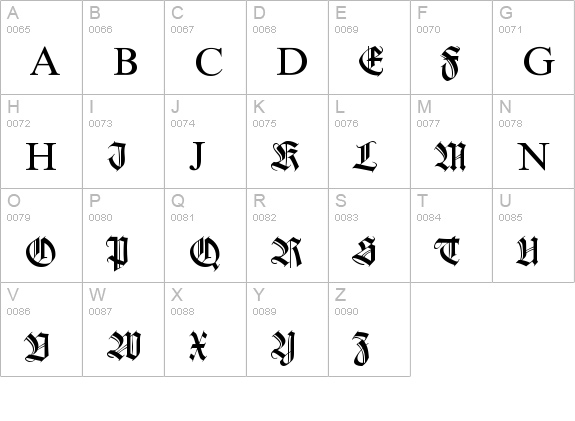
WKC Cyr Font Details
Introducing WKC Cyr, a captivating and versatile font that effortlessly combines elegance with modernity. This free font is bound to elevate any design project with its sleek and sophisticated aesthetic. Designed to make a lasting impression, WKC Cyr offers a unique balance of clean lines and subtle curves, resulting in a visually striking typeface that commands attention. Its carefully crafted letterforms exude confidence and professionalism, making it the perfect choice for both digital and print applications. Whether you're designing a logo, creating eye-catching headlines, or crafting stunning typographic compositions, WKC Cyr will effortlessly enhance your work. Its versatility shines through in a multitude of settings, from branding and advertising to editorial design and beyond. What makes WKC Cyr even more enticing is its accessibility. This font is freely available to download at FontsMarket.com, a trusted source for high-quality fonts. This means that you can easily incorporate the beauty and uniqueness of WKC Cyr into your designs without any hassle. With WKC Cyr, you can leave a lasting impression and captivate your audience with its timeless appeal. Download this remarkable font today and discover the limitless possibilities it holds for your creative endeavors.